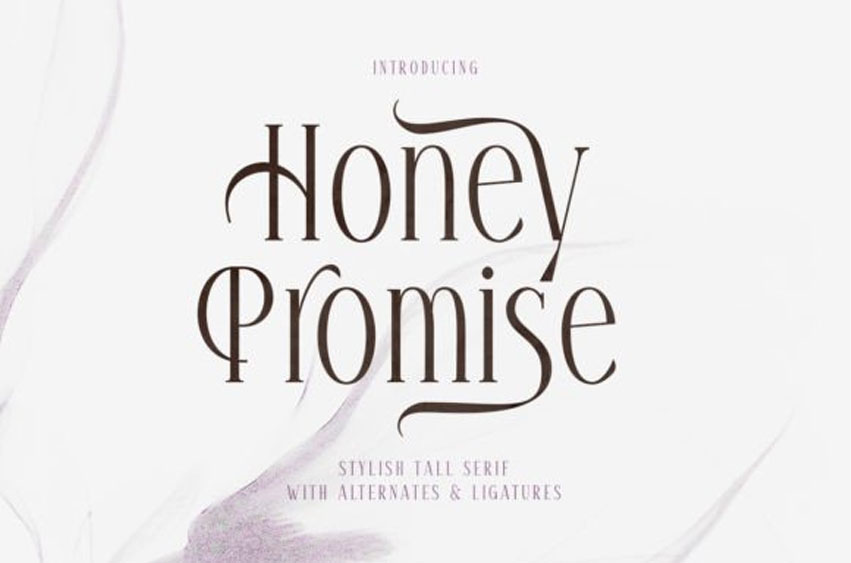
Honey Promise Font
Honey Promise Font is a stylish, tall serif with alternates and ligatures. This font is suitable for your beautiful brand that requires a simple and elegant look.
You can use this font for any purposes, such as logotypes, branding, wedding invitations, and quotes. With ligatures and alternates, this font will make your designs more chic and stunning! Honey Promise also supports multiple languages!